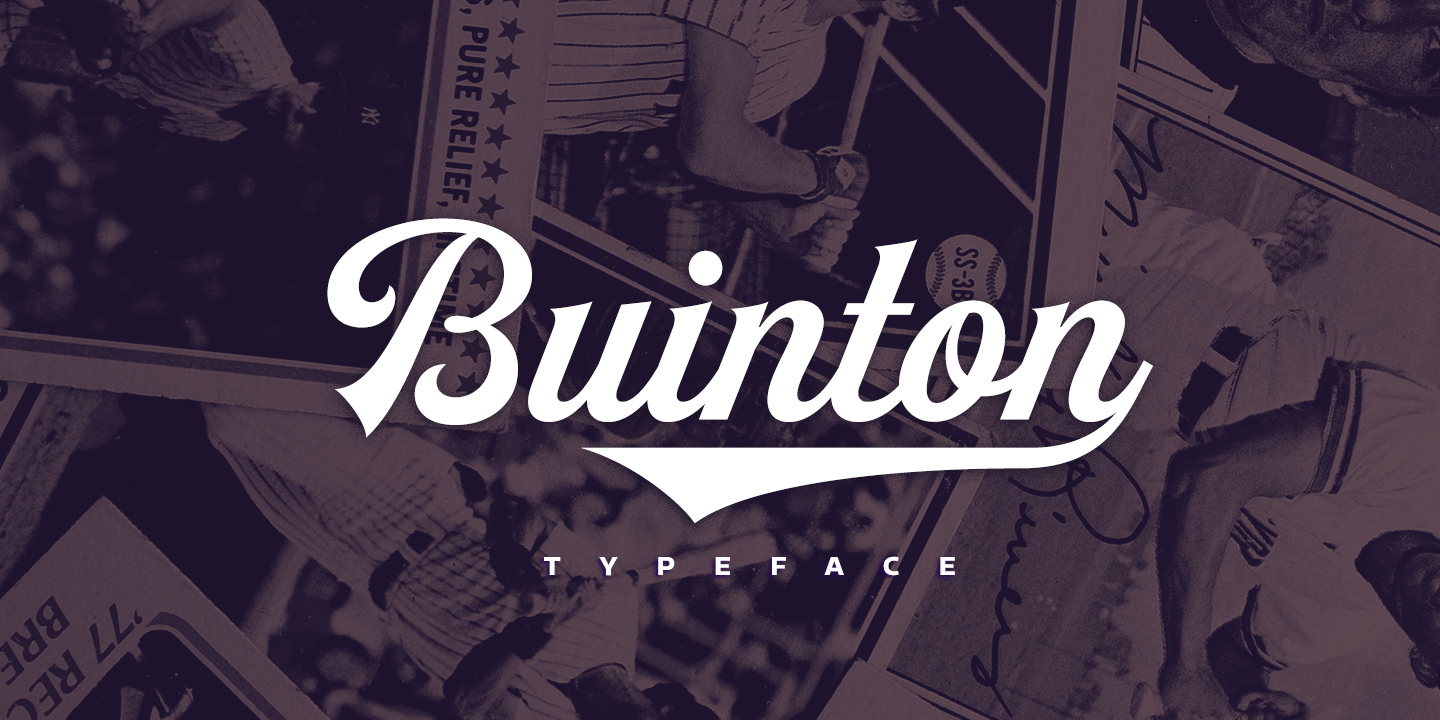
Buinton Font is perfect for innovative startup branding, contemporary technology interfaces, progressive design agencies, modern corporate identities, cutting-edge digital products, sophisticated web applications, forward-thinking marketing campaigns, sleek product packaging, professional portfolio presentations, and dynamic business communications. This versatile typeface excels in applications where modern professionalism and innovative spirit need to be communicated with refined sophistication and progressive clarity that embodies the essence of contemporary business excellence and the forward-thinking approach found in successful modern enterprises and technological innovation.
What makes Buinton Font exciting is its remarkable ability to balance contemporary innovation with professional reliability through its thoughtfully designed letterforms that project both creative freshness and business credibility in equal measure, making it ideal for organizations that need to appear both cutting-edge and trustworthy. The font embodies the spirit of modern business excellence with its clean construction and professionally optimized proportions that suggest the systematic thinking and innovative approach that characterizes successful contemporary organizations. Its precisely crafted character details and business-focused personality create an atmosphere of confident professionalism that resonates with entrepreneurs, business leaders, and design professionals who understand the importance of projecting both innovation and reliability in competitive business markets.
The Buinton Font family typically includes Light, Regular, Medium, and Bold weights, each maintaining the signature contemporary characteristics and professional sophistication. Some versions offer corresponding Italic styles that enhance the dynamic business appeal, extended character sets for international business applications, and specialized variants optimized for digital interfaces and corporate communications. The family may also include condensed styles for efficient business layouts and display cuts designed for maximum professional impact in corporate and business applications requiring authentic modern credibility and innovative business presence.
Whether you're creating contemporary business brands, innovative startup materials, or professional corporate communications, Buinton Font Free Download delivers the perfect modern sophistication your business-focused projects deserve. Its contemporary character and professional styling make it an invaluable asset for startups, corporations, and business service providers working in modern business, technology innovation, and professional services sectors where authentic contemporary credibility and forward-thinking business approach are essential for establishing leadership in competitive markets and building trust with clients who value both innovation and professional reliability in their business partnerships.